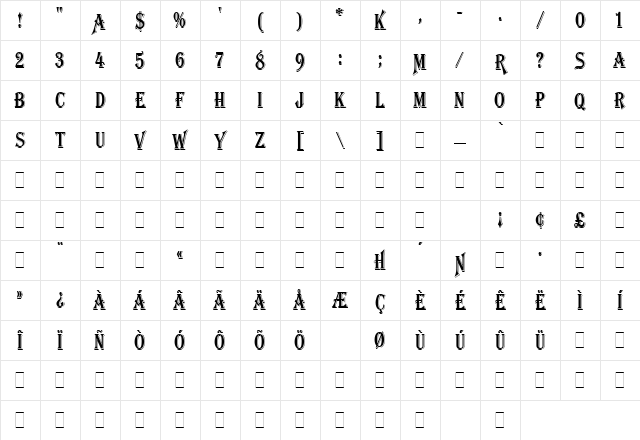
Complete Algerian Condensed LET Plain glyph index. Displaying only characters natively supported by Algerian Condensed LET Plain font.
Algerian Condensed LET is a composed and adaptable typeface that performs quietly and consistently across a wide range of design contexts. Its narrow stance lets it pack a punch even in space-constrained designs.